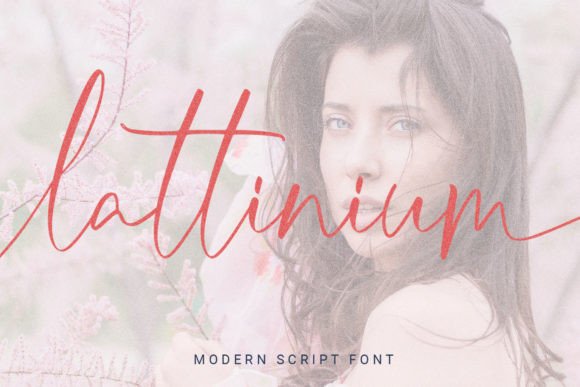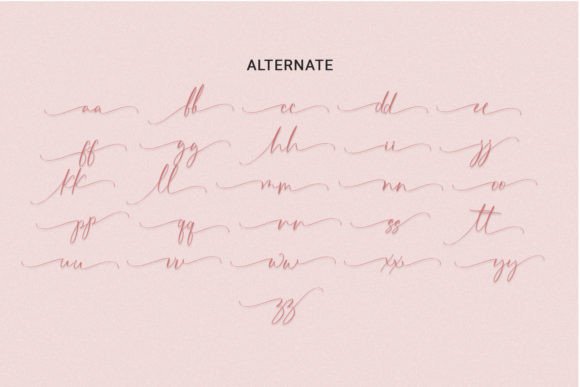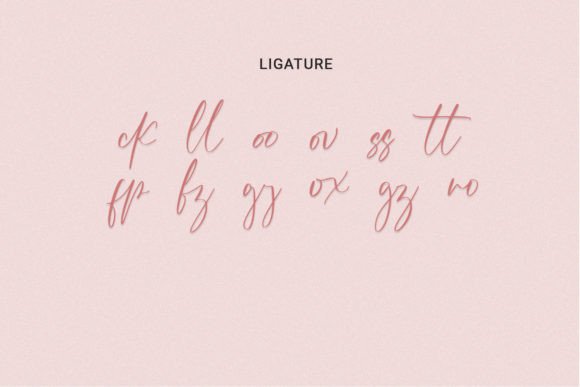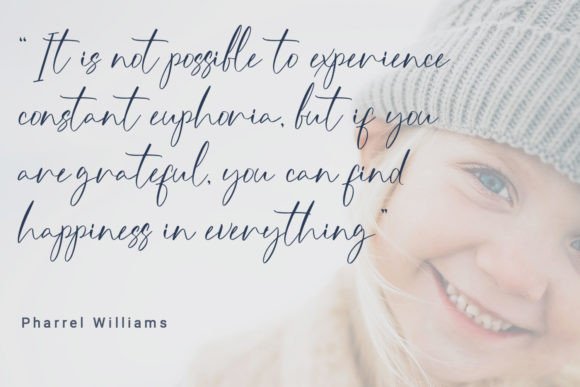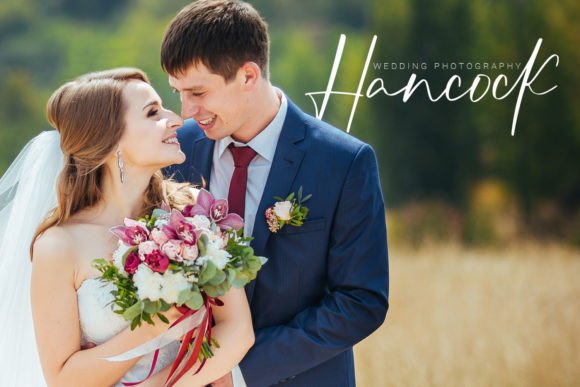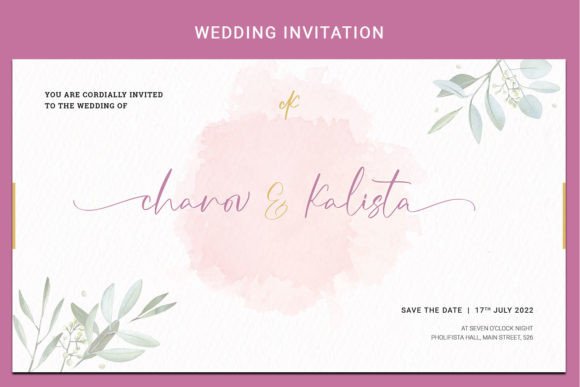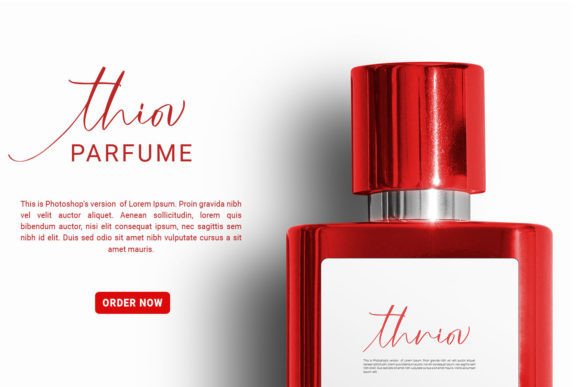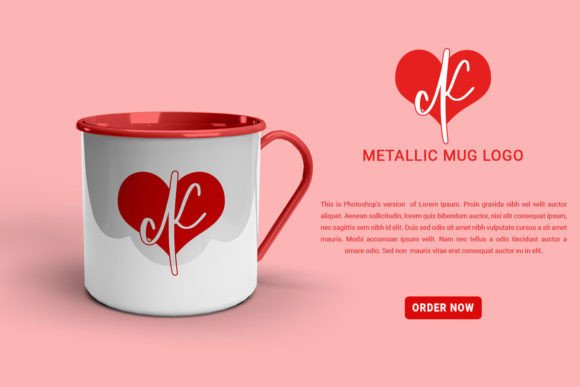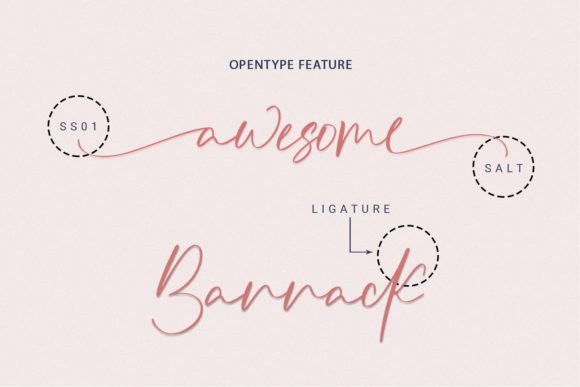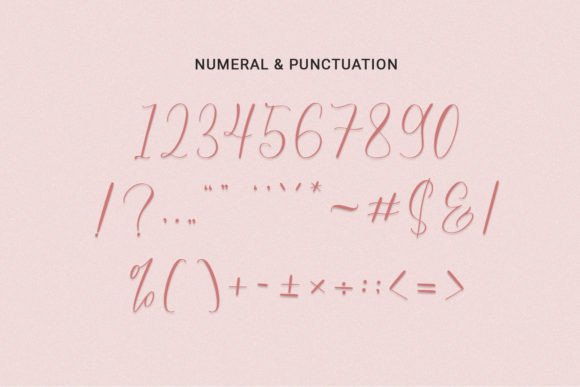
Lattinium Font
Add Unique Elegance with Lattinium Font
The Lattinium font is a unique and elegant handwritten script designed to bring a personalized and refined touch to your creative projects. Perfect for wedding invitations, thank you cards, greeting cards, logos, and many other designs, Lattinium adds sophistication and individuality to every detail.
Perfect for Invitations, Cards, and Branding
The Lattinium font shines in various design contexts including event stationery, personalized cards, branding materials, social media graphics, and product packaging. Its distinctive letterforms and graceful strokes create a polished and heartfelt look that enhances your designs.
A Handwritten Script with Distinctive Style
Each character in the Lattinium font is carefully crafted to deliver smooth, readable strokes that balance decorative elegance with clarity. This font is ideal for both headlines and detailed text elements, ensuring your messages are both beautiful and easy to read.
Despite its decorative style, the Lattinium font maintains excellent readability across various sizes. Whether used for large titles or smaller text elements, it balances elegance with clarity, making it a versatile choice for many creative projects.
Make Your Designs Shine with Personalized Style